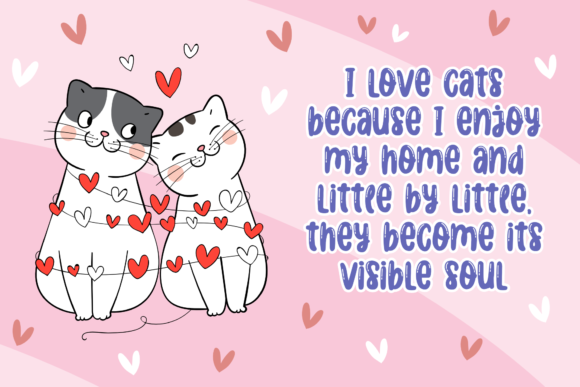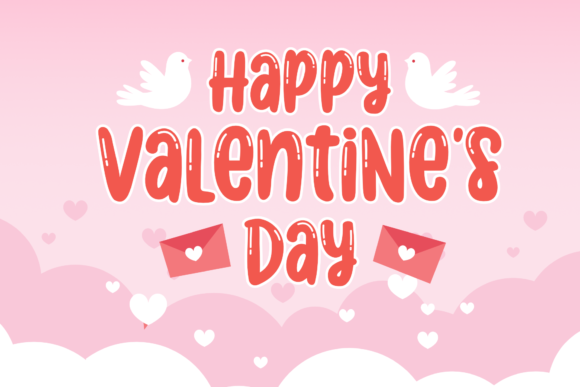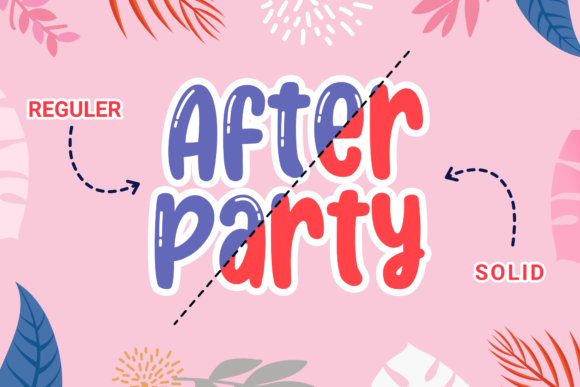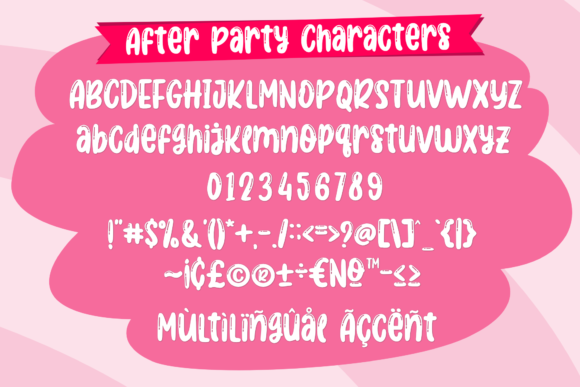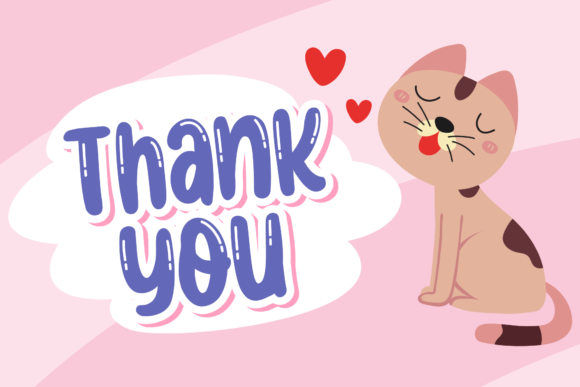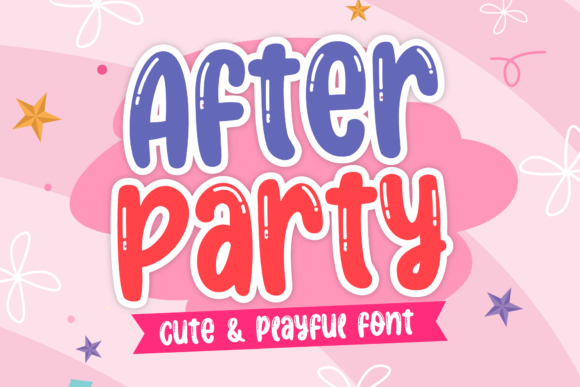
Adding a Joyful Touch to Your Creations
Who hasn’t felt the excitement of staying up late to finish a creative project, the rush of adrenaline as you bring your vision to life? You’re finally done, and you can’t wait to share it with the world! But, have you ever felt like something’s missing – that your design could use a little extra sparkle to make it truly unforgettable?
Enter the After Party Font, a delightful display font that’s sure to add an incredibly joyful touch to your crafting designs, school projects, and anything else that needs a happy boost. With its adorable and playful style, this font is perfect for designers looking to inject a little whimsy and fun into their work.
Whether you’re a seasoned pro or just starting out, the After Party Font is a valuable addition to any designer’s toolkit. Its versatility and charm make it an excellent choice for a wide range of projects, from digital art to print materials.
After Party Font Key Features
- Unique Characteristics: After Party Font features a modern, sans-serif design with a touch of playfulness, making it suitable for various applications, including logos, packaging, and digital interfaces.
Designer Review: After Party Font
Overall, I have mixed feelings about the After Party Font. On one hand, it’s a great addition to any project that requires a fun, energetic vibe. ✨
- Playful, eye-catching design that grabs attention
- Perfect for social media graphics, party invitations, and other fun projects
- Includes a wide range of characters, including numerals, punctuation, and special symbols
- Font may be too flashy for more formal or professional projects
- Some characters may not be as legible at smaller font sizes
- Not suitable for body text, as it can be overwhelming to read
- ⚠️ Limited language support, which may be a concern for projects that require multilingual text
In conclusion, the After Party Font is a great choice for projects that need a bold, energetic feel. While it may not be suitable for every project, it’s definitely a fun addition to any designer’s toolkit. Just be sure to use it sparingly and in the right context.
Use After Party Font for creating eye-catching titles and headings.
Experiment with different font sizes and colors to add visual interest.
Combine After Party Font with other fonts to create a unique and stylish design.
Use After Party Font for:
- Music festival and concert branding
- Summer-themed designs and graphics